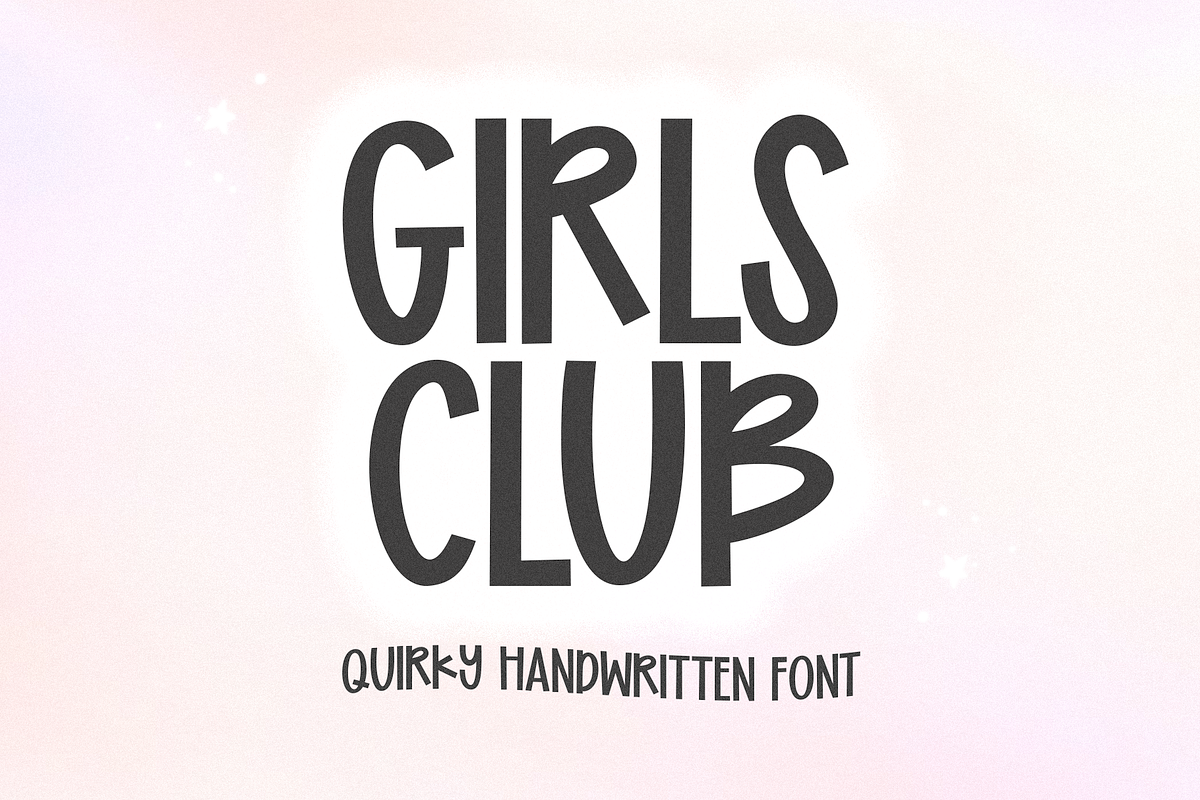
Girls Club | Cute Quirky Font Free Download
The Girls Club | Cute Quirky Font Free Download is a fun, playful, and vibrant typeface designed to bring a lighthearted and whimsical touch to your designs. With its quirky letterforms and cheerful style, this font is perfect for projects related to fashion, kids, invitations, and social media graphics. Whether you’re designing for a girls' brand, a party invitation, or a blog, Girls Club adds a cute and unique flair to any creative work.
Girls Club | Cute Quirky Font Free Download is ideal for designers who want to create fun, youthful, and approachable designs. Perfect for branding, event invitations, posters, and more, this font will make your creative projects stand out. Download this playful font today and give your designs a quirky, feminine touch!